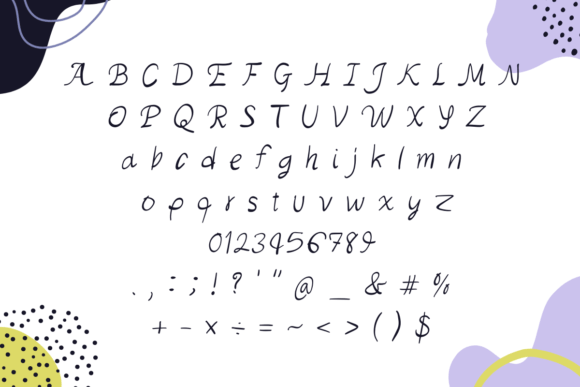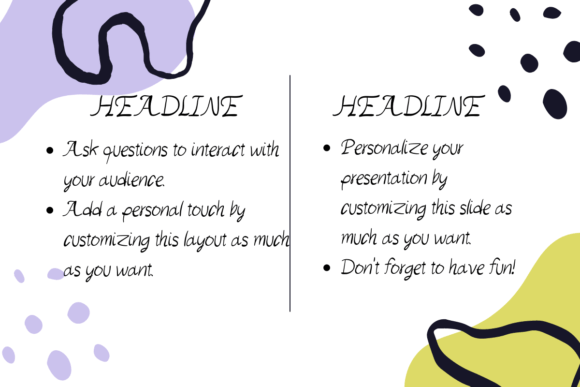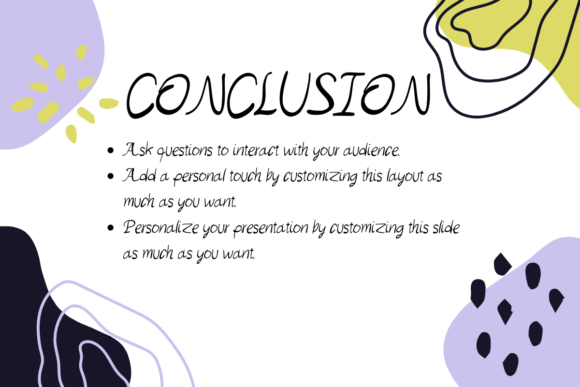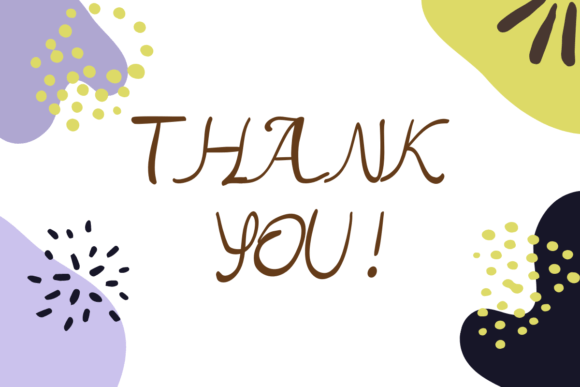
Introducing Chair Font: The Quirky Handwritten Font for Creative Expression
Are you tired of using the same old fonts for your designs? Look no further! Chair Font is a unique and quirky handwritten font that’s perfect for adding a personal touch to your creative projects. In this article, we’ll explore the features and uses of Chair Font, and how it can elevate your designs, whether you’re a designer, crafter, or simply a DIY enthusiast.
The Characteristics of Chair Font
Chair Font is a handwritten font that’s characterized by its playful, irregular, and whimsical feel. Its quirky nature makes it perfect for designs that require a personal and informal touch. The font is highly legible, making it suitable for a wide range of applications, from writing notes and diary entries to creating greeting cards and social media posts.
Uses of Chair Font
Chair Font is an incredibly versatile font that can be used for various design projects. Here are some ideas to get you started:
- Note-taking and journaling: Add a personal touch to your notes and diary entries with Chair Font. Its quirky nature makes it perfect for writing down your thoughts, ideas, and inspirations.
- Greeting cards and invitations: Create unique and eye-catching greeting cards and invitations with Chair Font. Its playful feel makes it ideal for special occasions like birthdays, weddings, and holidays.
- Banners and posters: Use Chair Font to create bold and attention-grabbing banners and posters. Its irregular nature makes it perfect for designs that require a creative and artistic touch.
- Social media posts: Add a personal touch to your social media posts with Chair Font. Use it to create engaging and interactive content that stands out from the crowd.
- Mugs, cards, and stationery: Create unique and personalized gifts with Chair Font. Its quirky nature makes it perfect for designing mugs, cards, and stationery that showcase your creativity.
- T-shirts and apparel: Use Chair Font to create eye-catching and stylish designs for t-shirts and apparel. Its playful feel makes it perfect for fashion brands and designers.
Why Choose Chair Font?
So, why choose Chair Font over other fonts? Here are some reasons why Chair Font stands out:
- Unique and quirky: Chair Font has a one-of-a-kind feel that’s hard to find in other fonts. Its quirky nature makes it perfect for designs that require a personal touch.
- Highly legible: Despite its irregular nature, Chair Font is highly legible, making it suitable for a wide range of applications.
- Versatile: Chair Font can be used for various design projects, from note-taking and journaling to creating banners and social media posts.
Tips for Using Chair Font
Here are some tips for using Chair Font effectively:
- Experiment with different colors: Chair Font looks great in a variety of colors. Experiment with different colors to find the one that works best for your design.
- Pair it with other fonts: Chair Font can be paired with other fonts to create a unique and visually appealing design.
- Use it for headings and titles: Chair Font is perfect for headings and titles. Use it to add a personal touch to your designs.
- Don’t be afraid to get creative: Chair Font is a versatile font that can be used in a variety of creative ways. Don’t be afraid to experiment and try new things.
Chair Font is a quirky handwritten font that’s perfect for adding a personal touch to your designs. Its unique and irregular nature makes it suitable for a wide range of applications, from note-taking and journaling to creating banners and social media posts. With its high legibility and versatility, Chair Font is an excellent choice for designers, crafters, and DIY enthusiasts. So, why not give Chair Font a try and see how it can elevate your designs?